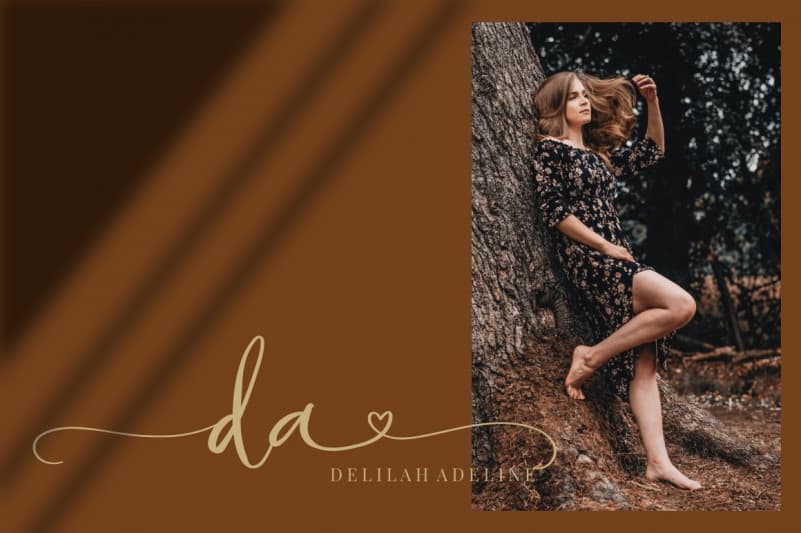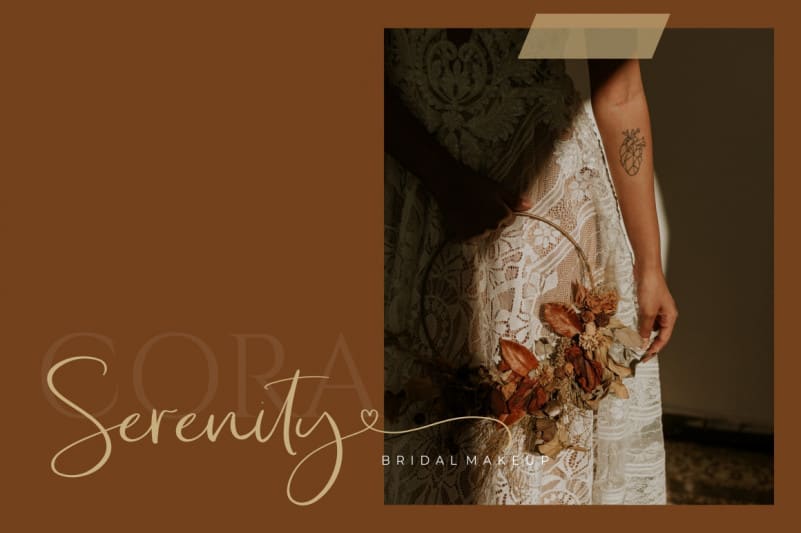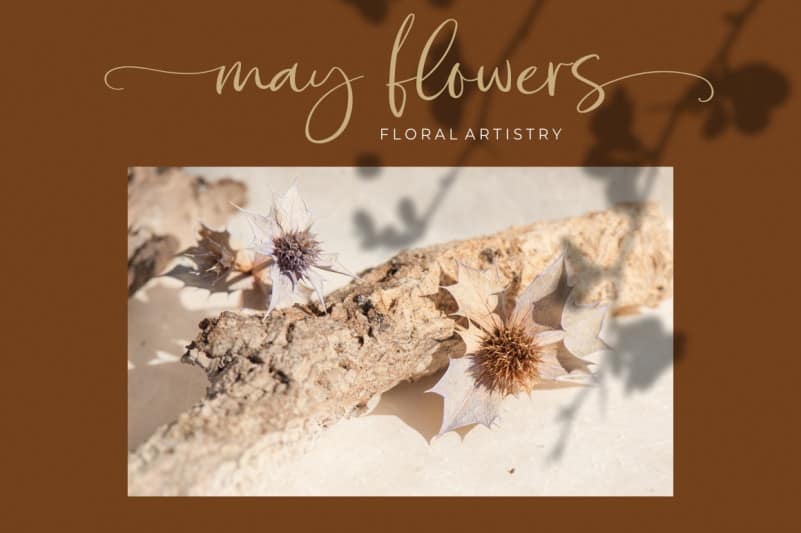
Introducing Missy Script Font. A modern and feminine gont that will look awesome on logos, branding materials, wedding and event stationery, social media overlays, cards and so on.